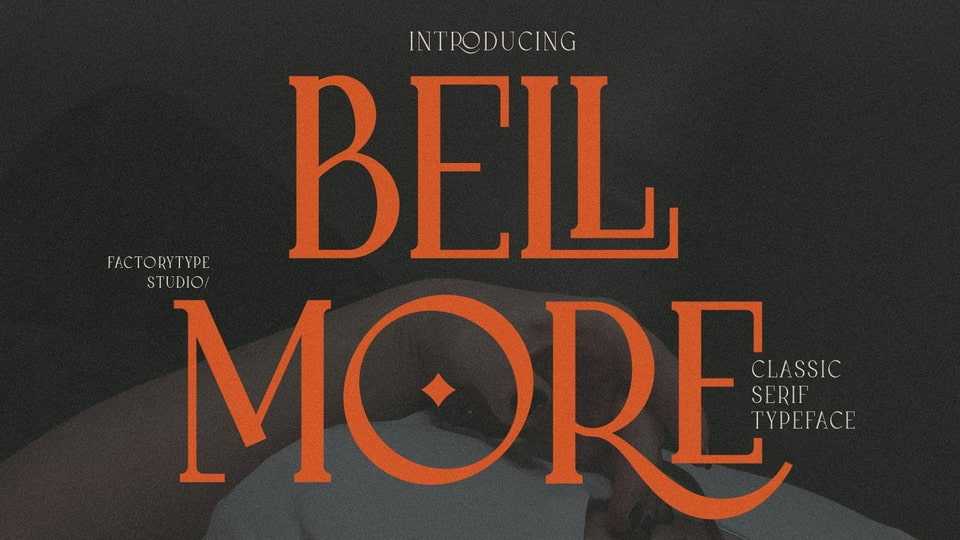
Download Bellmore font, a beautiful serif typeface with a classic feel to it. The elegant design of Bellmore is the result of combining modern and vintage elements.
Designer: Factory Type